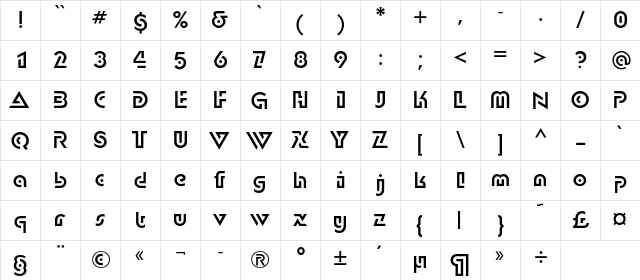
DublonC Regular Font Preview
DublonC Regular
DublonC Regular Font Details
Design Context for DublonC Typeface
DublonC takes a measured approach to typography — its balanced proportions and neutral character make it a reliable workhorse for both digital and print work.